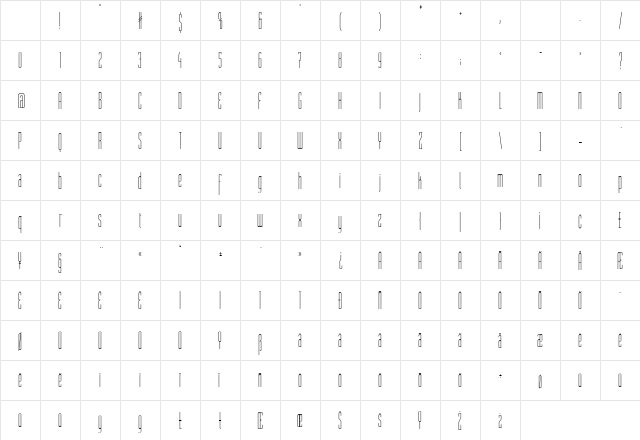
Complete ST Moviehead Ultra-condensed Medium glyph index. Displaying only characters natively supported by ST Moviehead Ultra-condensed Medium font.
ST Moviehead is a composed and adaptable typeface that performs quietly and consistently across a wide range of design contexts. Its narrow stance lets it pack a punch even in space-constrained designs.